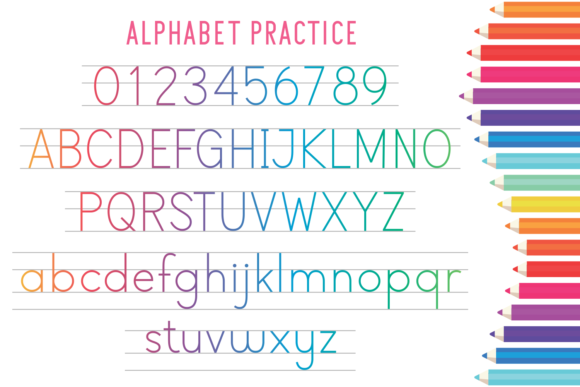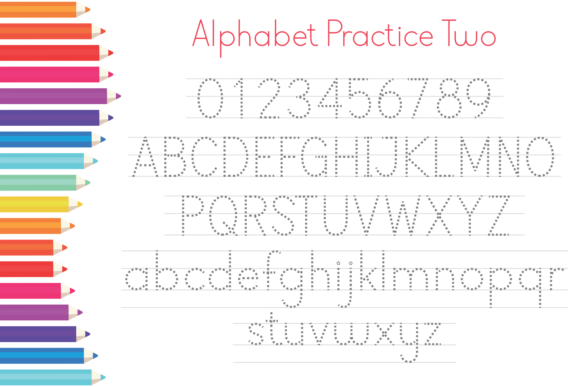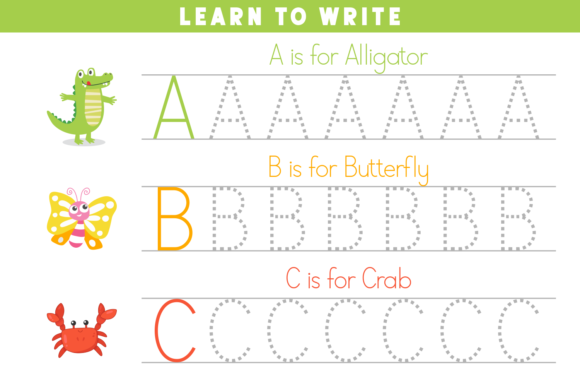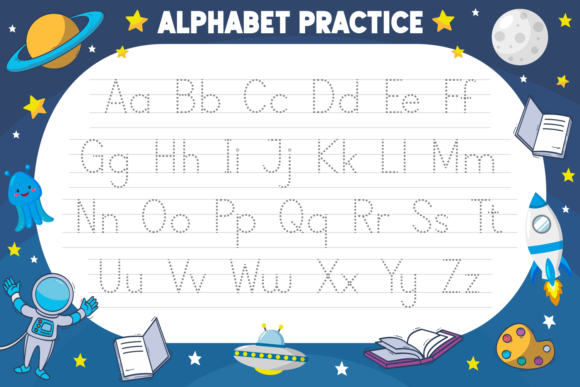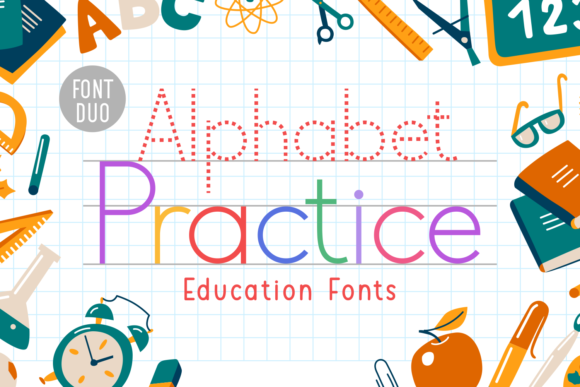
Introducing Alphabet Practice Font: The Perfect Choice for Teaching Materials and Children’s Educational Games
Are you a designer, teacher, or crafter looking for a font that can help you create engaging and educational materials for children? Look no further than the Alphabet Practice Font. This simple, clean, and thin lettered sans serif font is specifically designed for creating teaching materials and children’s educational games. In this article, we’ll explore the features and benefits of the Alphabet Practice Font and why it’s an ideal choice for your next project.
What is Alphabet Practice Font?
Alphabet Practice Font is a sans serif font that features simple and clean lines, making it easy to read and understand. The font is thin and elegant, giving it a modern and fresh look that’s perfect for educational materials. The font is designed to be versatile and can be used for a variety of purposes, from creating worksheets and activity sheets to designing educational games and posters.
Key Features of Alphabet Practice Font
- Simple and Clean Design: The font features simple and clean lines, making it easy to read and understand.
- Thin Lettered: The font is thin and elegant, giving it a modern and fresh look.
- Sans Serif: The font is sans serif, making it perfect for digital and print materials.
- Versatile: The font can be used for a variety of purposes, from creating worksheets and activity sheets to designing educational games and posters.
Benefits of Using Alphabet Practice Font
There are several benefits to using Alphabet Practice Font for your teaching materials and children’s educational games. Here are a few:
- Easily Readable: The font is easy to read, even for young children who are just learning to read.
- Engaging: The font’s modern and fresh look can help engage children and make learning fun.
- Customizable: The font can be customized to fit your specific needs, from changing the color and size to adding effects and textures.
- Time-Saving: The font can save you time and effort in creating teaching materials and educational games, allowing you to focus on other important tasks.
Who Can Benefit from Alphabet Practice Font?
Alphabet Practice Font is an ideal choice for a variety of individuals and organizations, including:
- Teachers: Teachers can use the font to create engaging and educational materials for their students.
- Designers: Designers can use the font to create custom teaching materials and educational games for their clients.
- Crafters: Crafters can use the font to create custom teaching materials and educational games for their own use or to sell online.
- Educational Institutions: Educational institutions can use the font to create teaching materials and educational games for their students.
Tips for Using Alphabet Practice Font
Here are a few tips for using Alphabet Practice Font:
- Use a Consistent Color Scheme: Use a consistent color scheme to create a cohesive look and make the text easy to read.
- Experiment with Different Sizes: Experiment with different sizes to find the perfect size for your teaching materials and educational games.
- Add Texture and Effects: Add texture and effects to make the text more engaging and fun.
- Pair with Other Fonts: Pair Alphabet Practice Font with other fonts to create a unique and interesting look.
Alphabet Practice Font is a simple, clean, and thin lettered sans serif font that’s perfect for creating teaching materials and children’s educational games. With its easily readable design, engaging look, and customizable features, it’s an ideal choice for designers, teachers, crafters, and educational institutions. By following the tips outlined in this article, you can create engaging and educational materials that will help children learn and have fun.